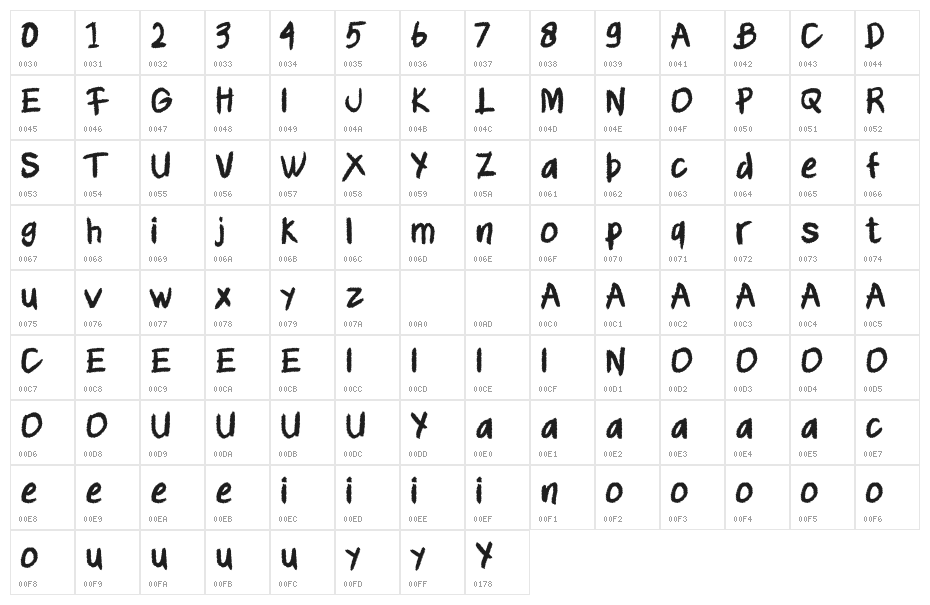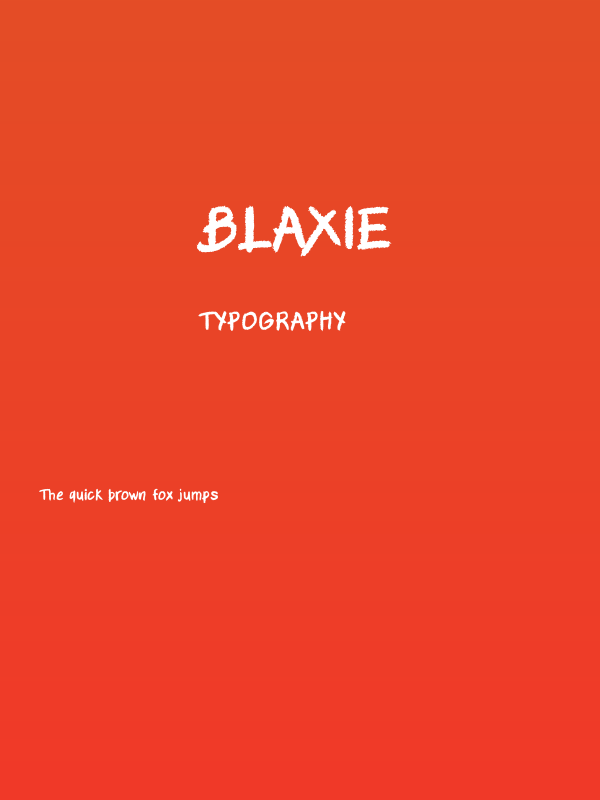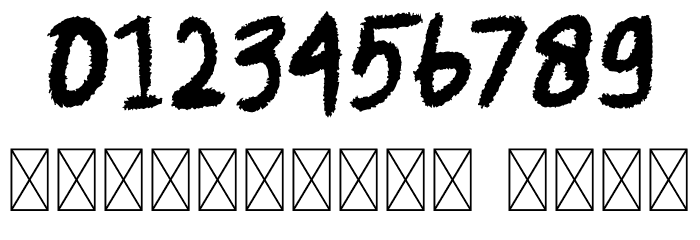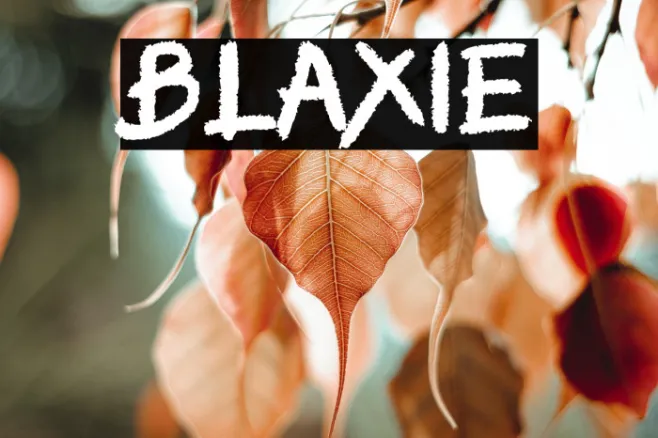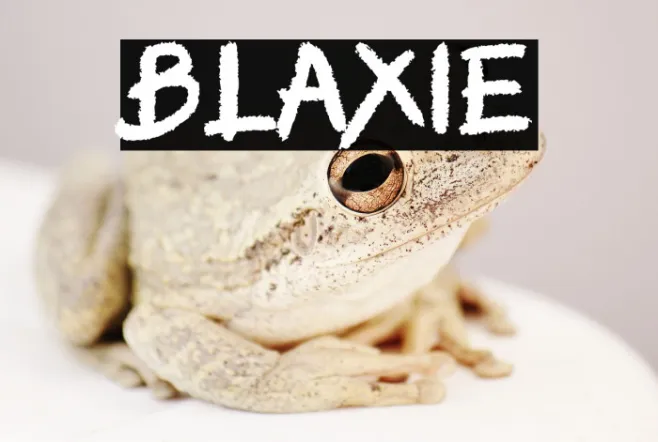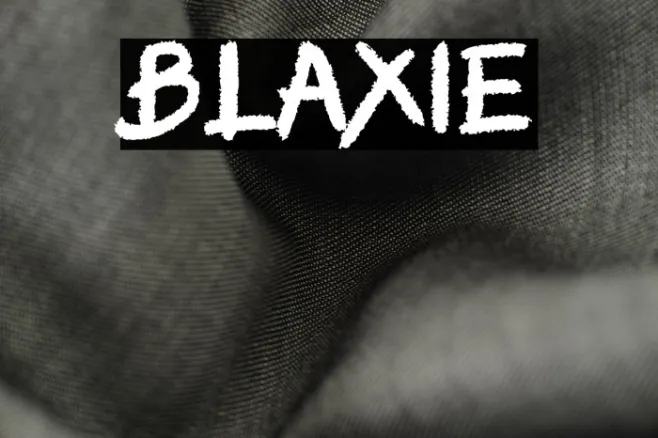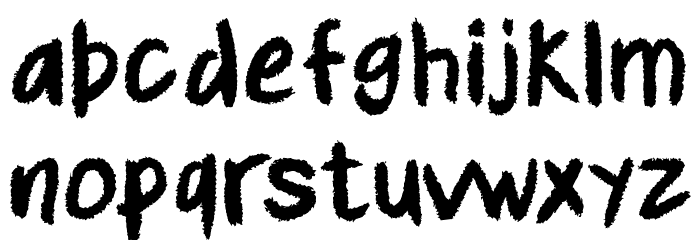
BLAXIE Font
BLAXIE Description
This font features a bold, textured style that mimics the appearance of brush strokes or chalk writing. The characters have a playful and dynamic feel, with irregular edges and varying stroke thicknesses that add a sense of movement and energy. The uppercase and lowercase letters maintain a consistent style, while the numbers and special characters complement the overall aesthetic. This font is ideal for creating eye-catching designs that require a touch of creativity and informality.